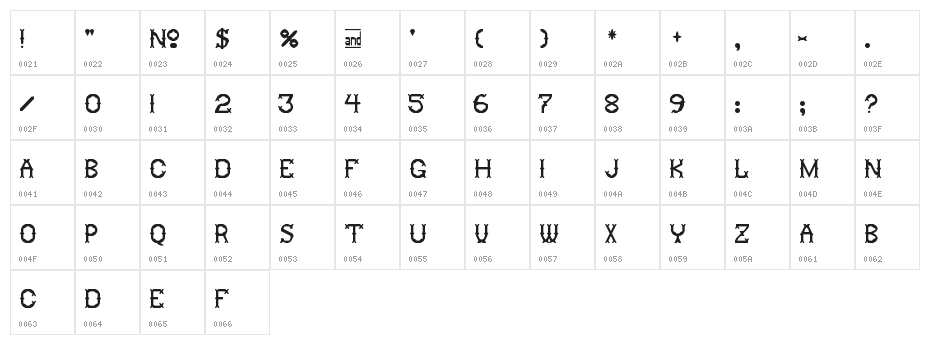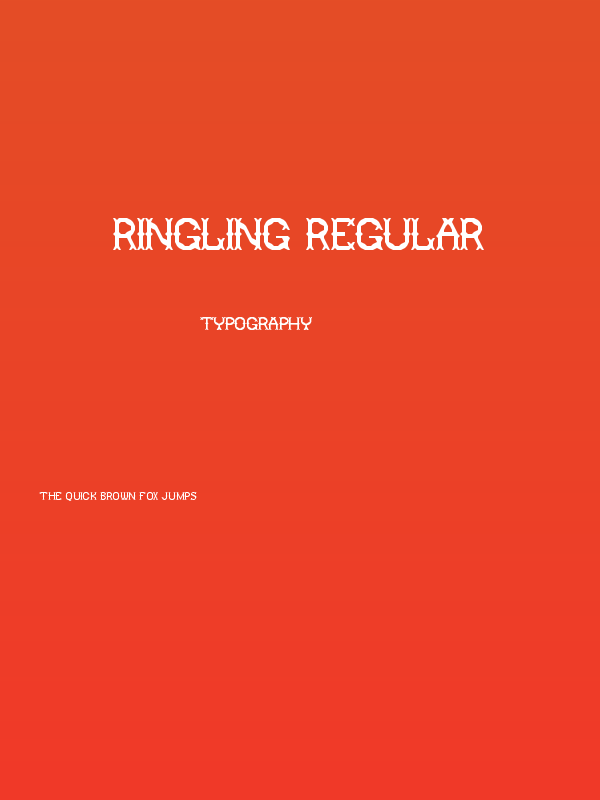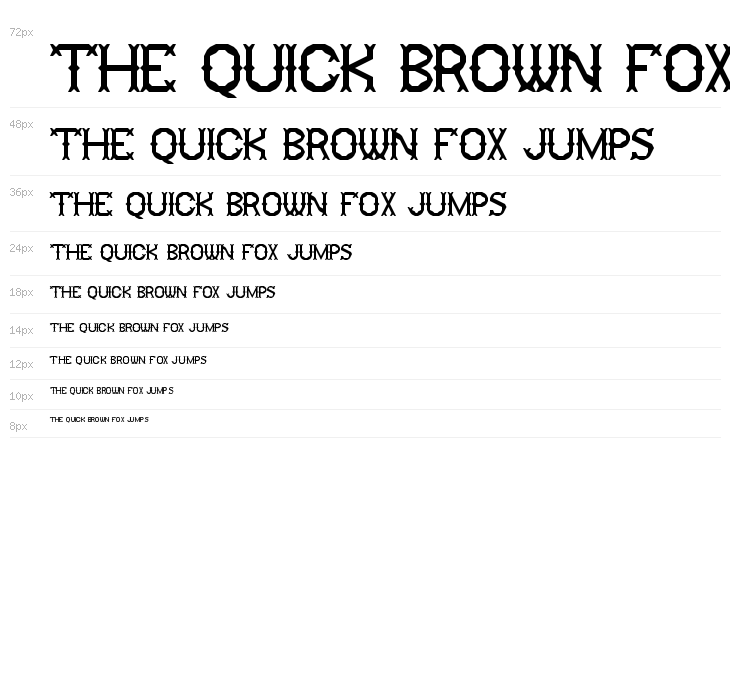
Ringling Regular Font
Ringling Regular Description
This font features a unique and bold design with sharp, angular edges and a distinct geometric style. The characters are formed with a series of interconnected lines and shapes, giving it a decorative and somewhat industrial appearance. The uppercase and lowercase letters maintain a consistent style, with the uppercase letters being slightly more pronounced. The numbers and special characters follow the same design principles, ensuring a cohesive look across all elements. This font is ideal for projects that require a strong visual impact and a modern, edgy aesthetic.
Proposed ProjectsIdeal for posters, album covers, branding, and any project needing a strong visual impact.